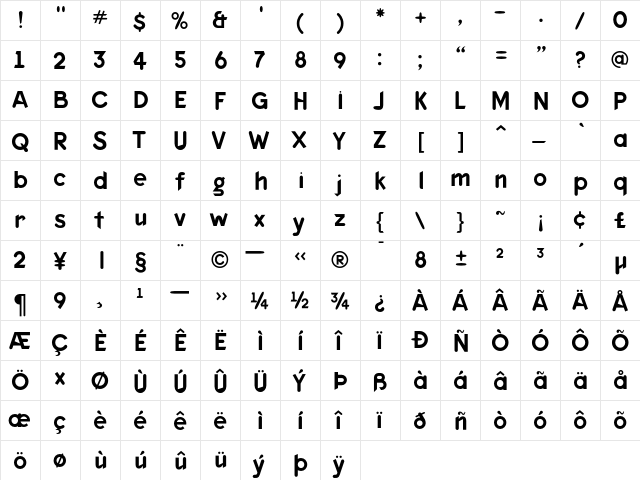
KeedySansReg Regular
Design Context for KeedySansReg Typeface
KeedySansReg offers clean, dependable letterforms without strong stylistic allegiance, making it a practical choice for designers who need flexibility.